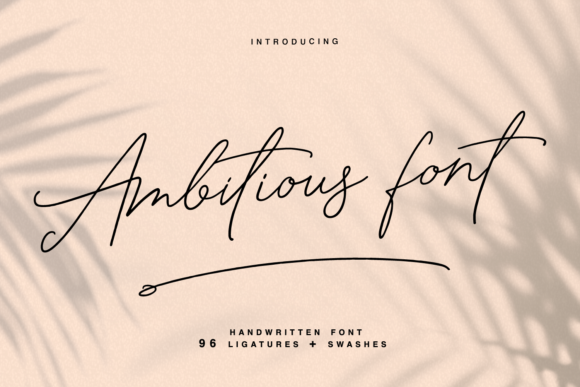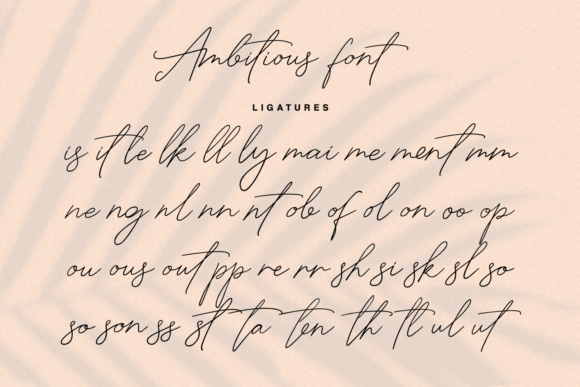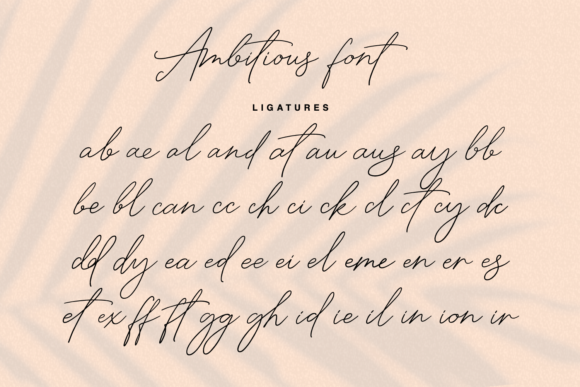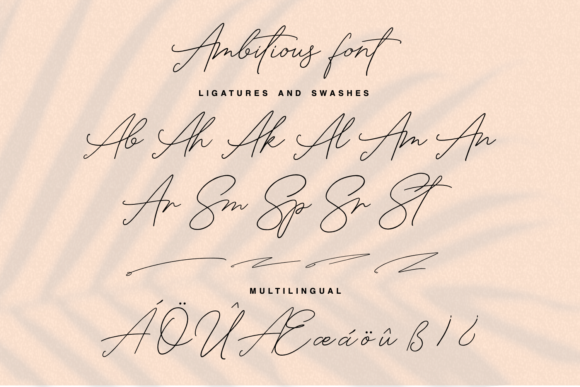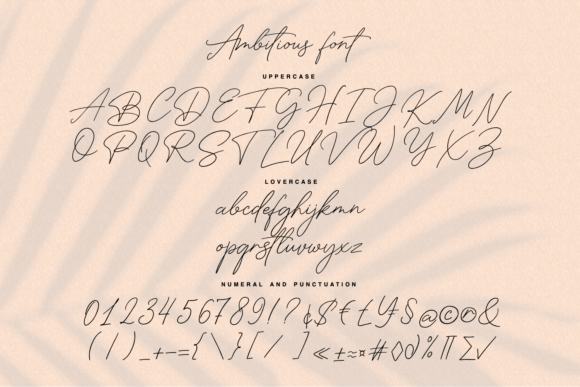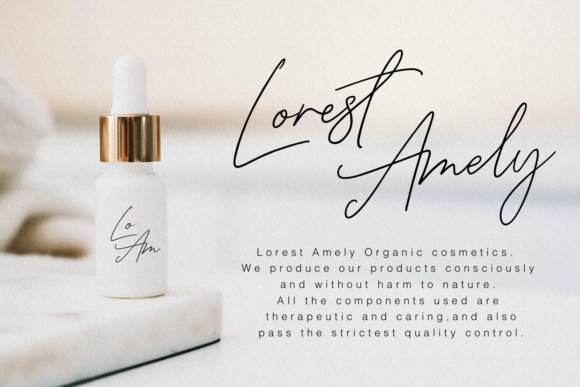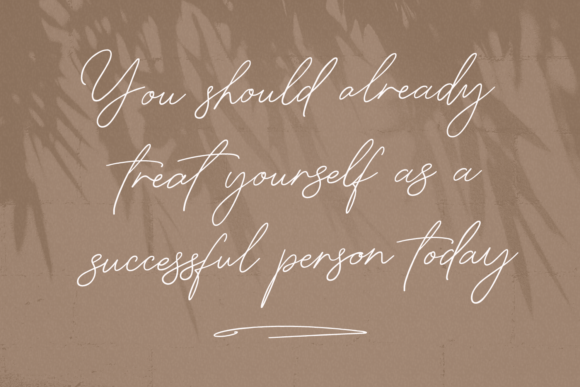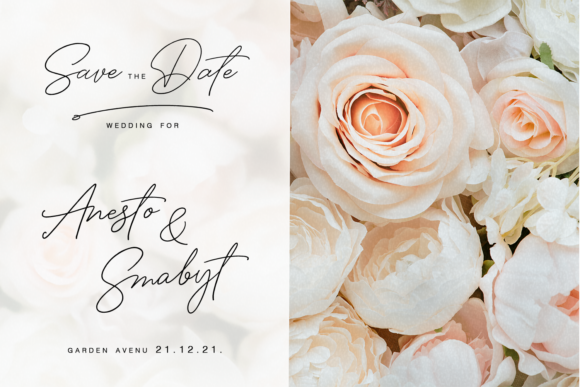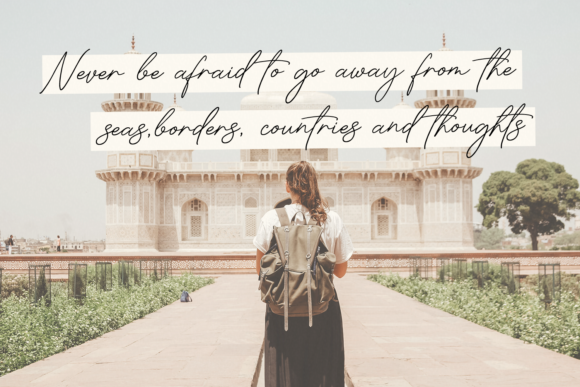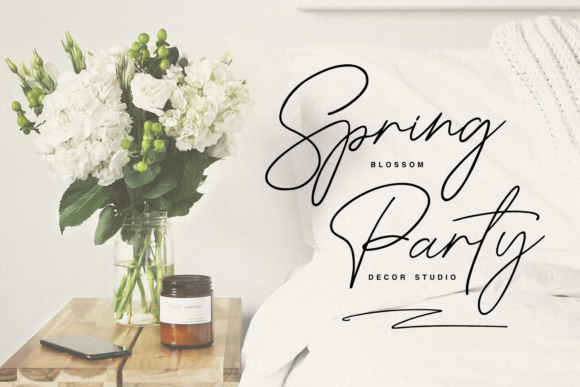
Ambitious Font
About Ambitious Font
Ambitious is a stunning and elegant cursive script font that exudes a sense of sophistication and style. Its thin strokes and graceful curves give it a delicate and refined appearance, making it perfect for creating eye-catching logos, branding, and quotes.
The cursive nature of Ambitious adds a touch of elegance and fluidity to your designs, making them stand out and leave a lasting impression on your audience. Each letter is meticulously crafted with a unique and beautiful touch, adding a personalized and artistic feel to your creations.
For logos, Ambitious brings a sense of professionalism and class to your brand identity. Its thin and cursive style conveys a sense of creativity and refinement, making your logo design distinctive and memorable.
In branding, Ambitious lends a touch of sophistication to your marketing materials, be it on business cards, brochures, or websites. Its versatility allows it to adapt to various styles and industries, from fashion and beauty to lifestyle and luxury.
When used in quotes, Ambitious adds a touch of elegance and emotion to the text, making the words come alive and resonate with the reader. Whether it’s a motivational quote or a heartfelt message, Ambitious enhances the impact of the words and makes them more compelling.
Overall, Ambitious is a thin and cursive script font that embodies elegance, style, and creativity. Its unique and beautiful touch makes it a standout choice for a wide range of design projects, from logos and branding to quotes and marketing materials. Embrace the beauty of Ambitious in your designs and watch them come to life with sophistication and flair.